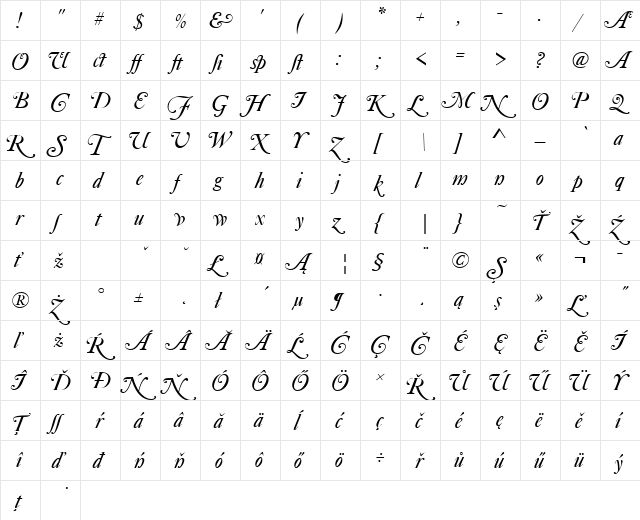
CaslonSwaAltDEE Italic
CaslonSwaAltDEE takes a measured approach to typography — its balanced proportions and neutral character make it a reliable workhorse for both digital and print work. The slanted form adds forward momentum and visual energy.